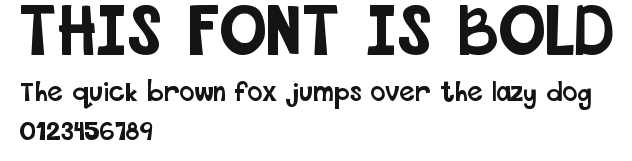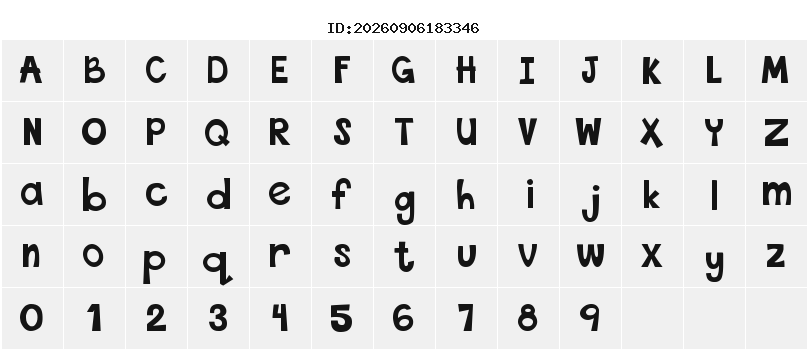
• Font Name: THIS FONT IS BOLD
• Font Style: Gras
• Full Font Name: THIS FONT IS BOLD Bold
About THIS FONT IS BOLD.ttf
THIS FONT IS BOLD.ttf is a modern, elegant sans-serif font designed for ultimate readability and visual harmony. Perfect for branding, headlines, web design, and print materials.